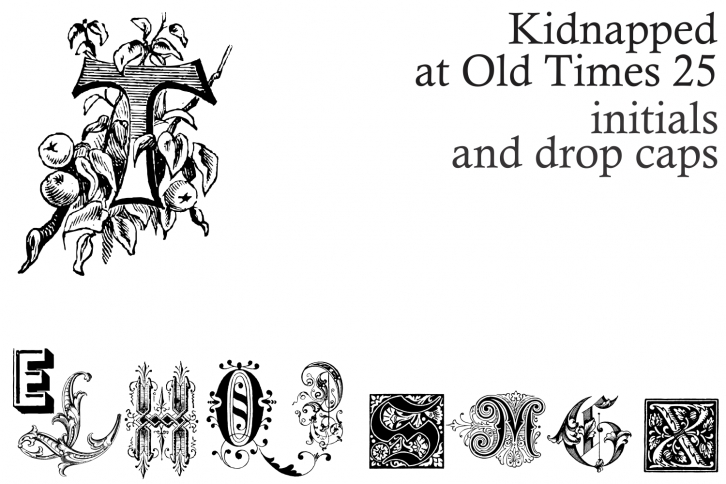
Kidnapped at Old Times 25 is a beautiful font that was designed by Intellecta Design. It's a great choice for designers and creatives who need such a font. It was released on June 16, 2018 and the file size is 12.60 MB. Kidnapped at Old Times 25 may give a more youthful, expressive and casual look to your project. It is a very beautiful, refined, elegant, and high-quality font.